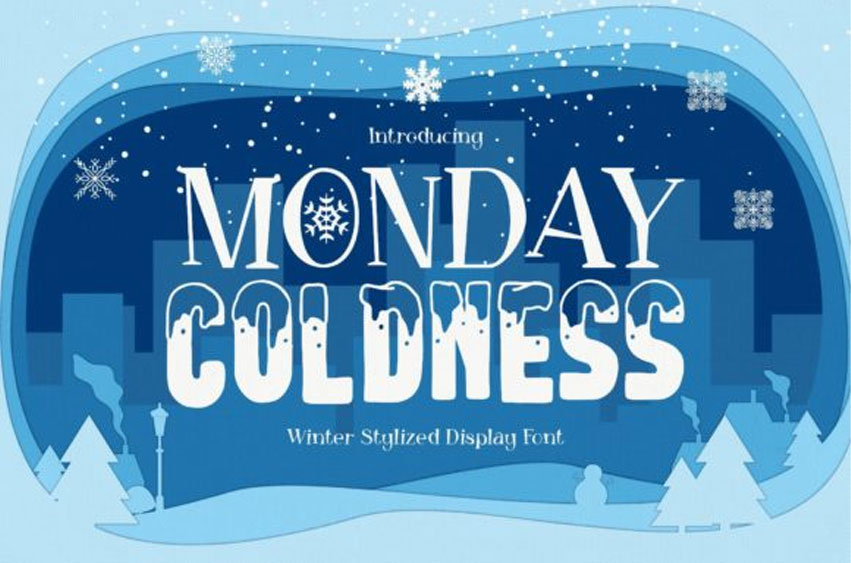
Monday Coldness Font is a cool and wintery trio font (display, decorative and dingbats). It will elevate a wide range of crafting ideas, from cards, to branding, labels and much more.